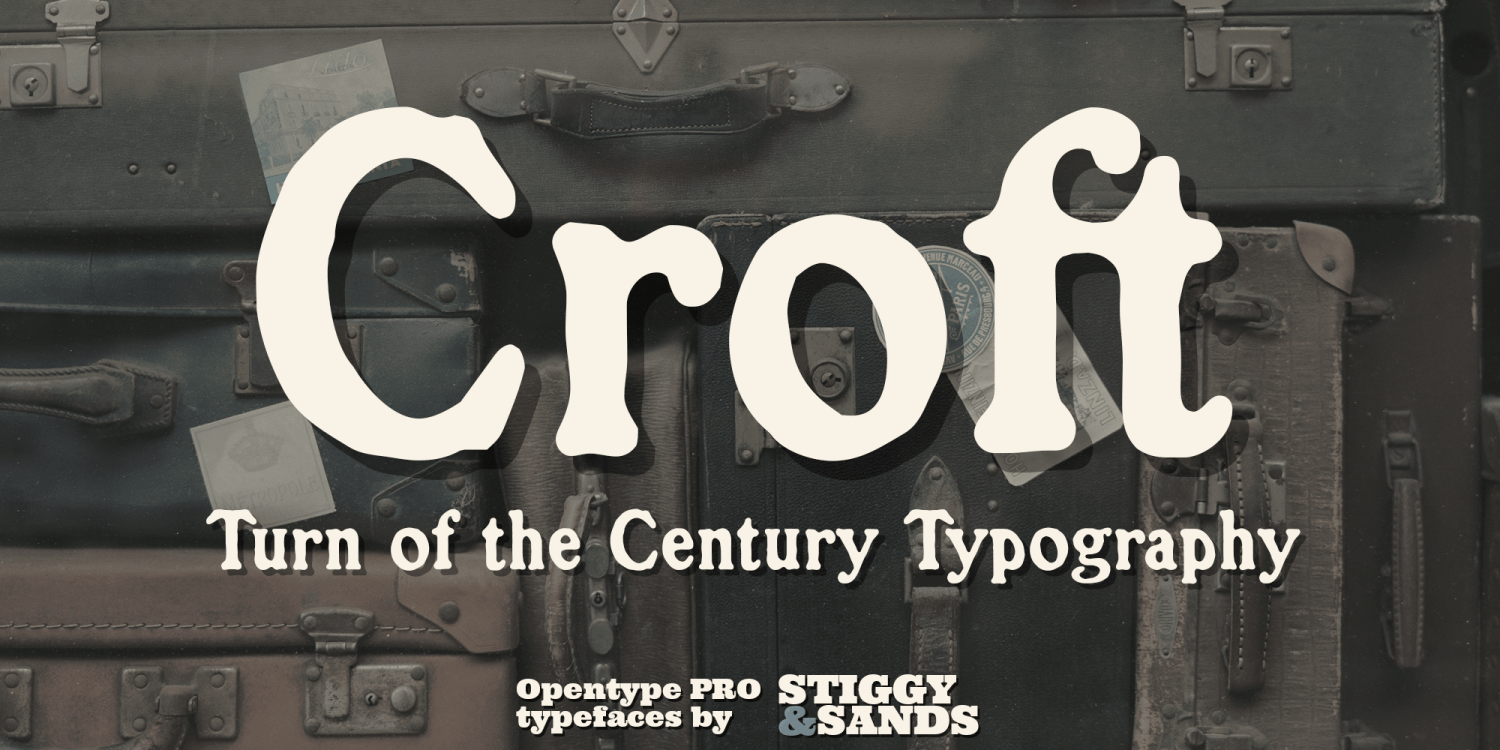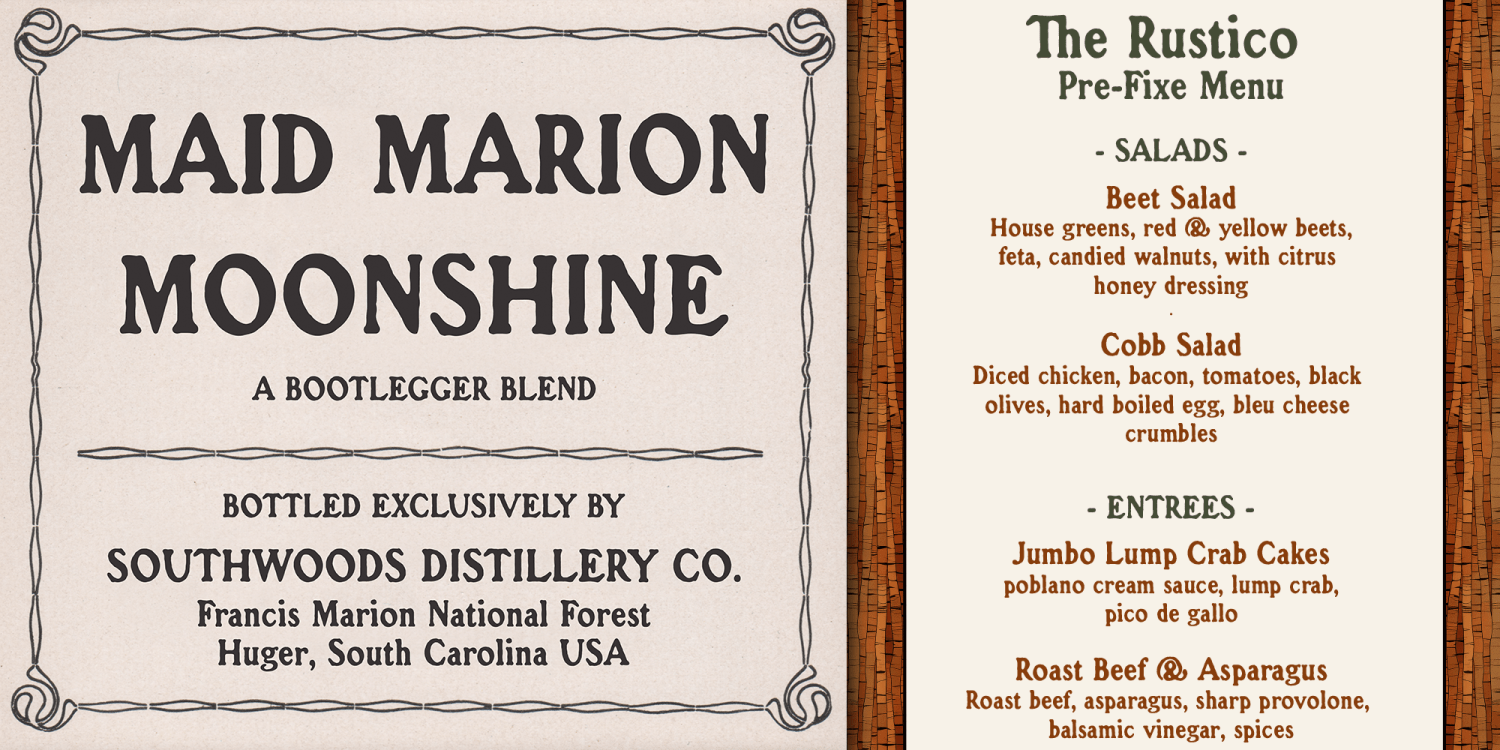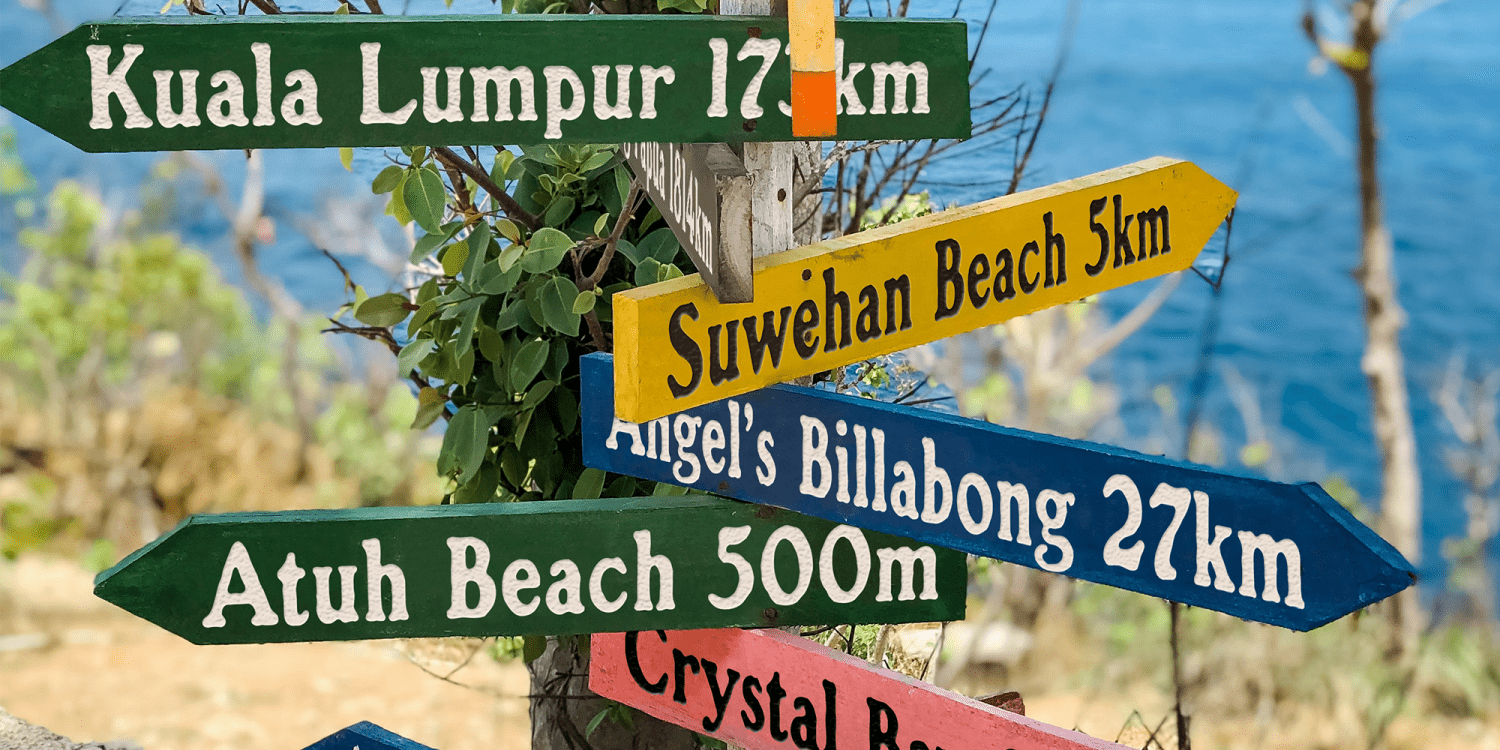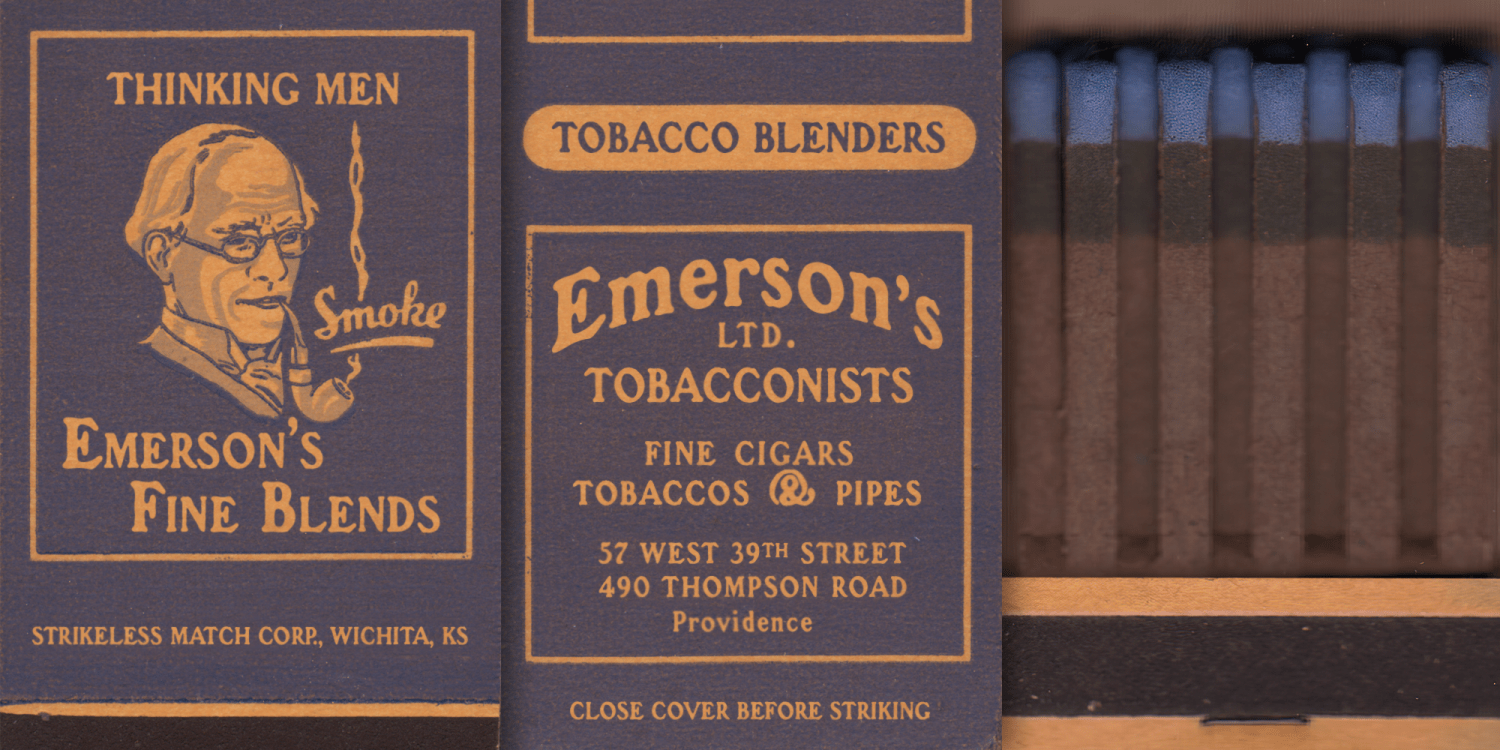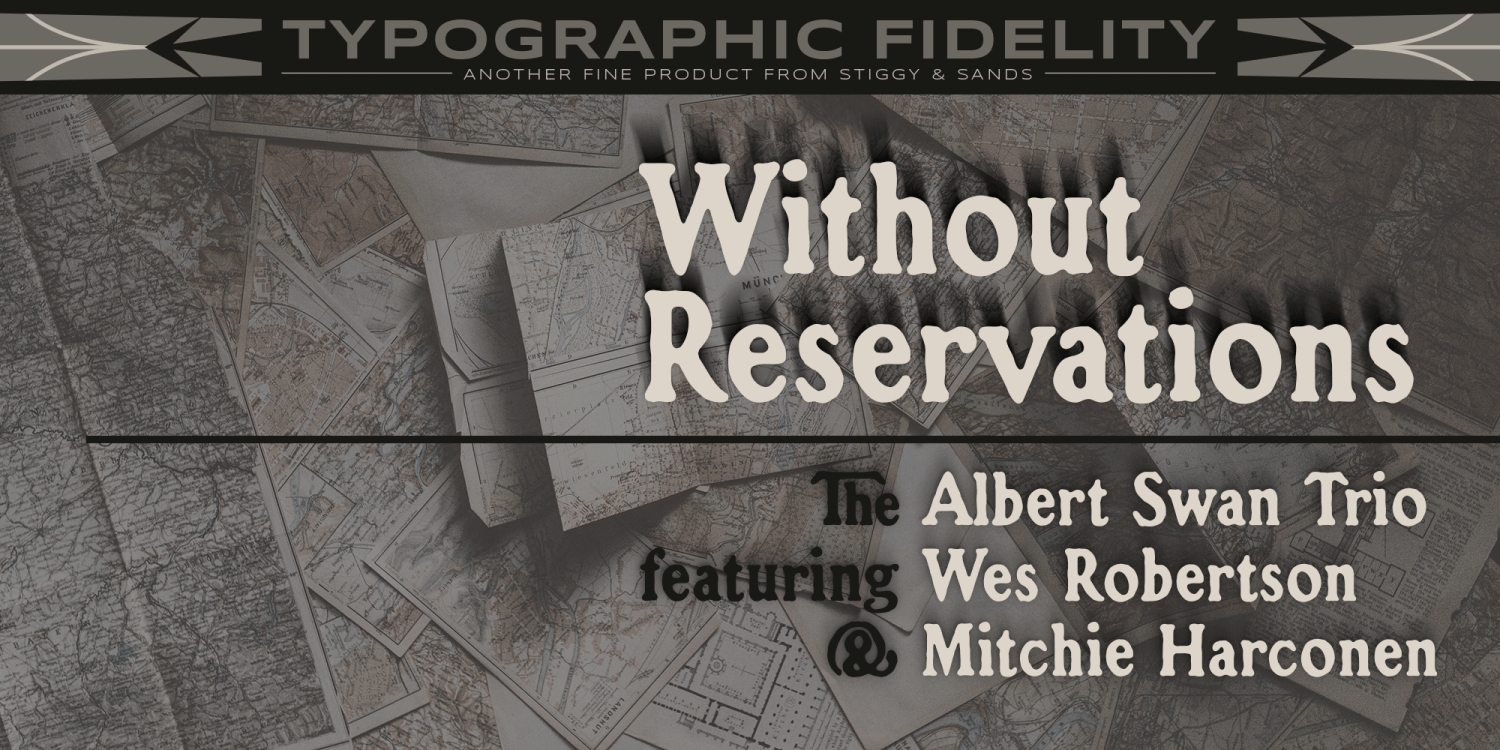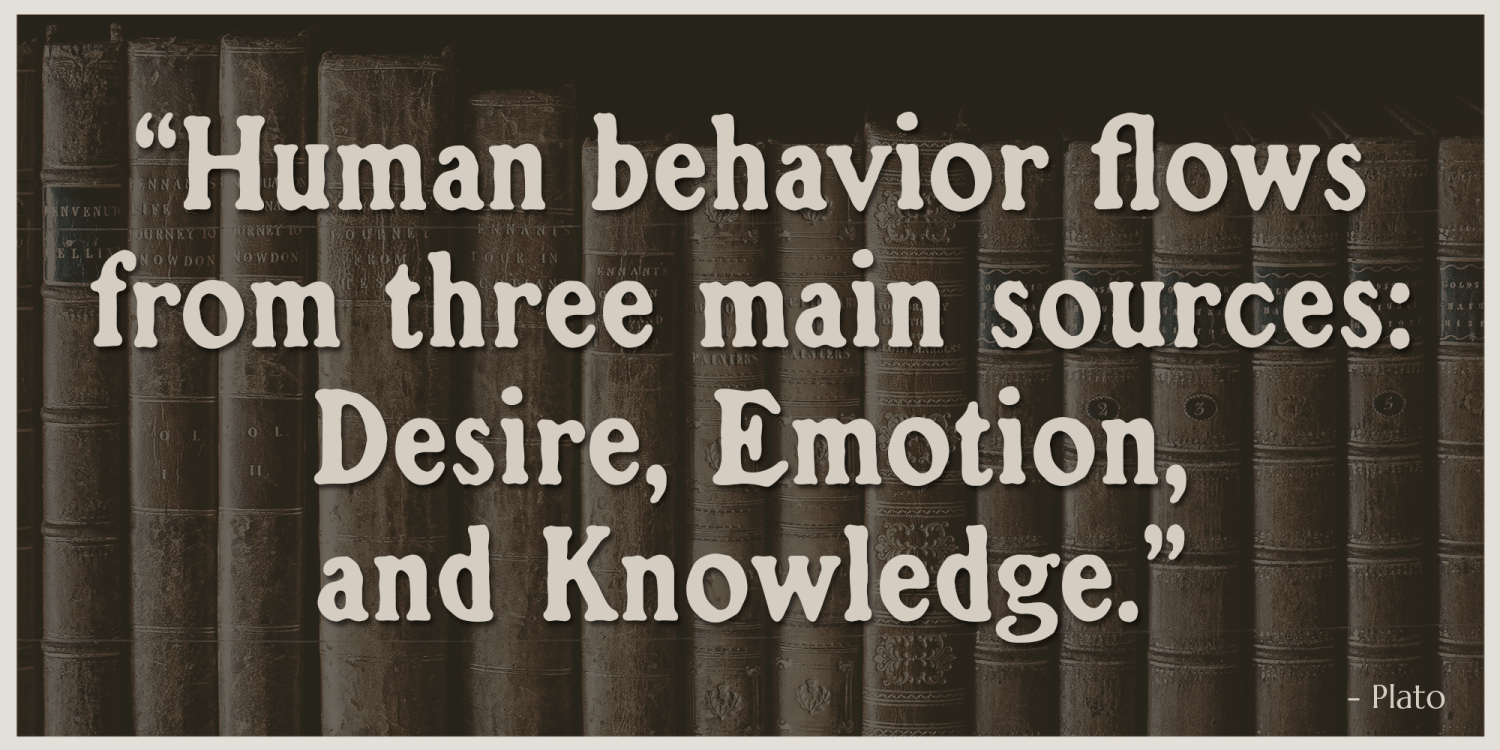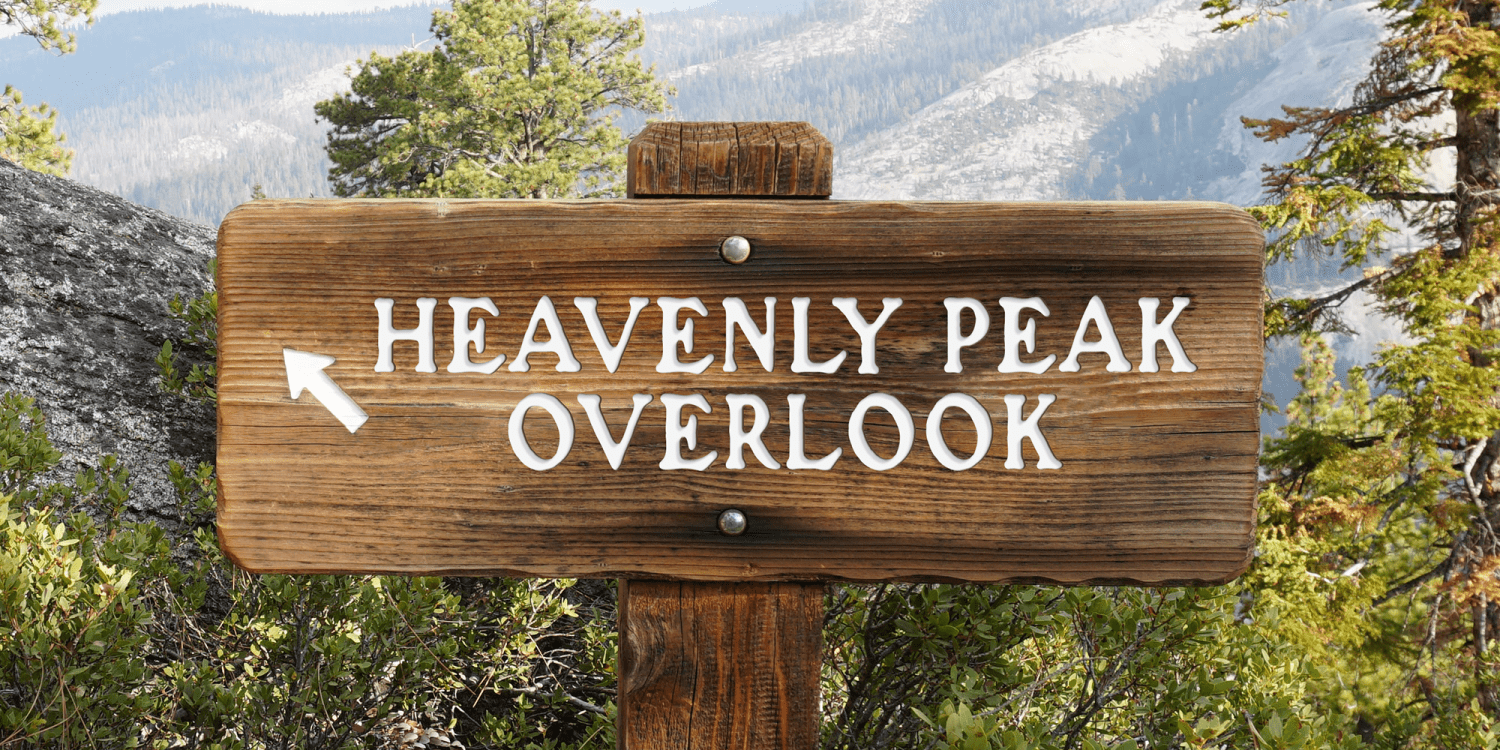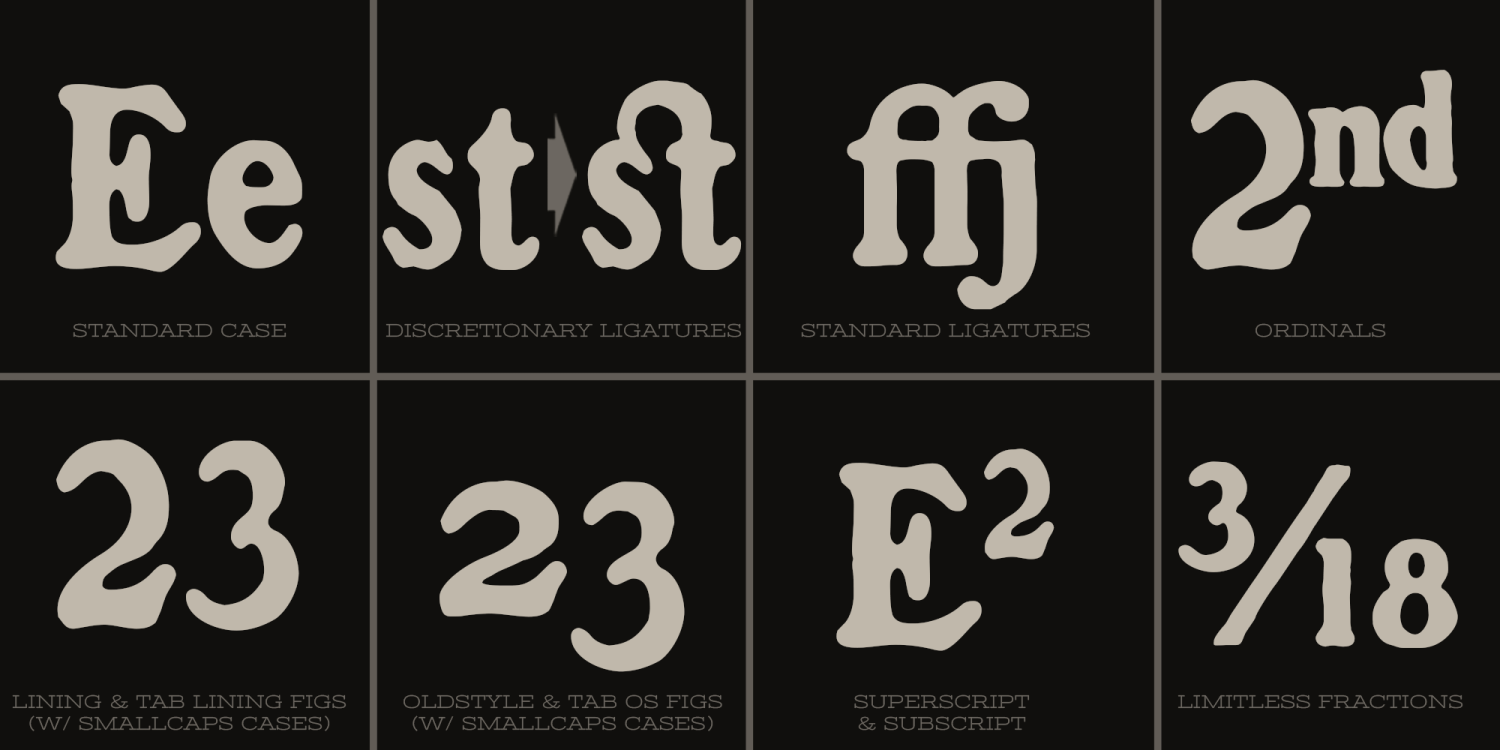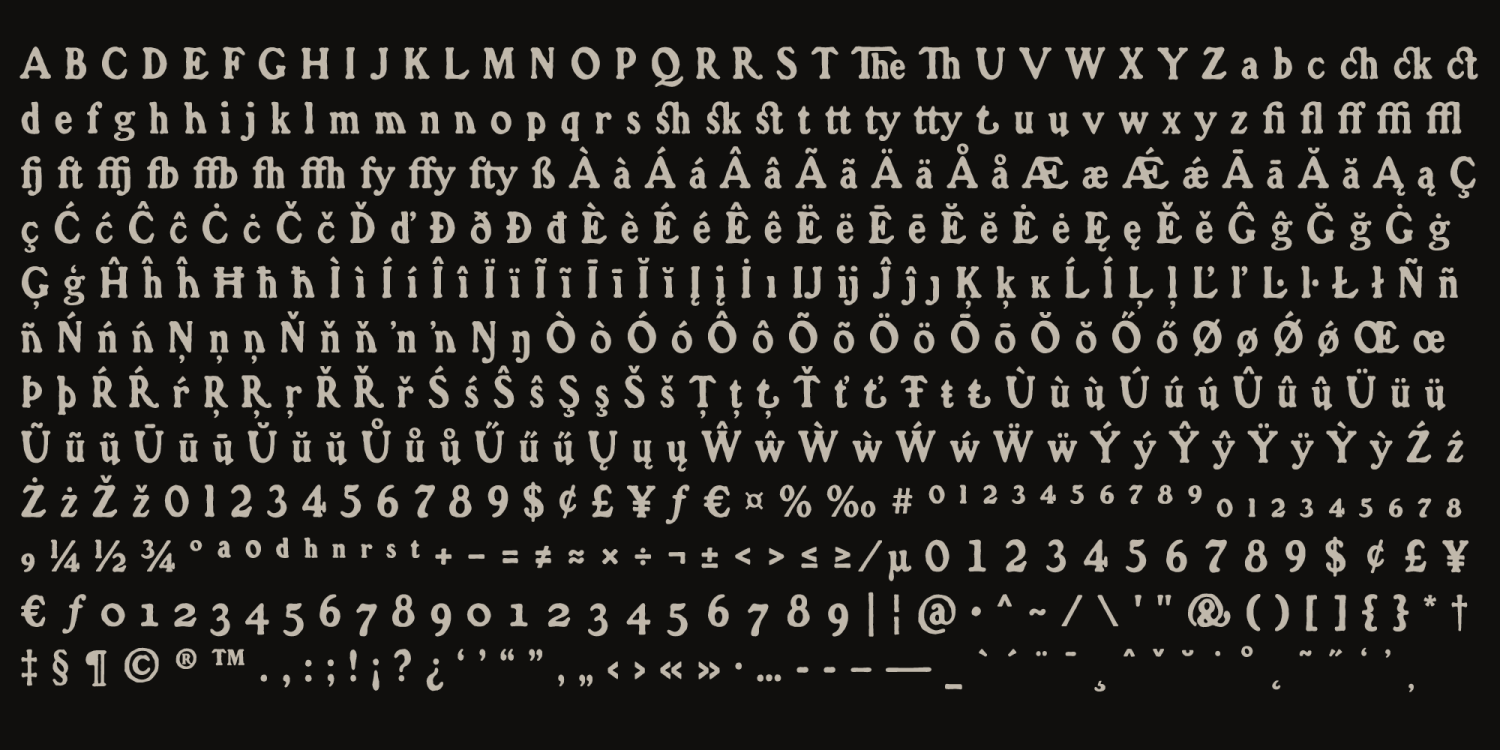
Croft
A revival of one of the most popular of a number of rugged typefaces used around the turn of the century, Croft revives the creation of Lewis Buddy III, known as Roycroft in 1912 ATF catalogs. It also, according to ATF, was designed "partly" by Morris Benton, around 1898.
The original typeface might be considered an early form of grunge fonts. This typestyle maintains historical flavor, while also being relevant today. It has been expanded to have more discretionary ligatures and numerals sets for versatility, and maintains the original stylistic alternates and standard ligatures.
Opentype features include:
? Full set of Inferiors and Superiors for limitless fractions.
? Tabular, Proportional, and Oldstyle figure sets.
? A small collection of Discretionary & Standard Ligatures.
? Stylistic Alternates for variations of several characters such as R, u, t, etc.
Approx. 482 Character Glyph Set: Croft comes with a glyphset that includes standard & punctuation, international language support, and additional features.